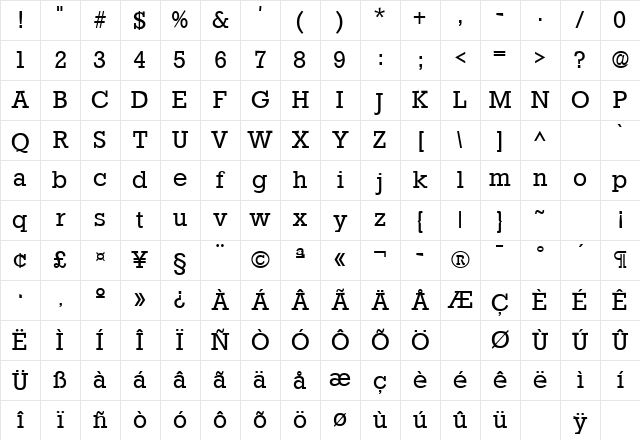
Stafford Regular
Stafford Family
Design Context for Stafford
Stafford is a composed and adaptable typeface that performs quietly and consistently across a wide range of design contexts.